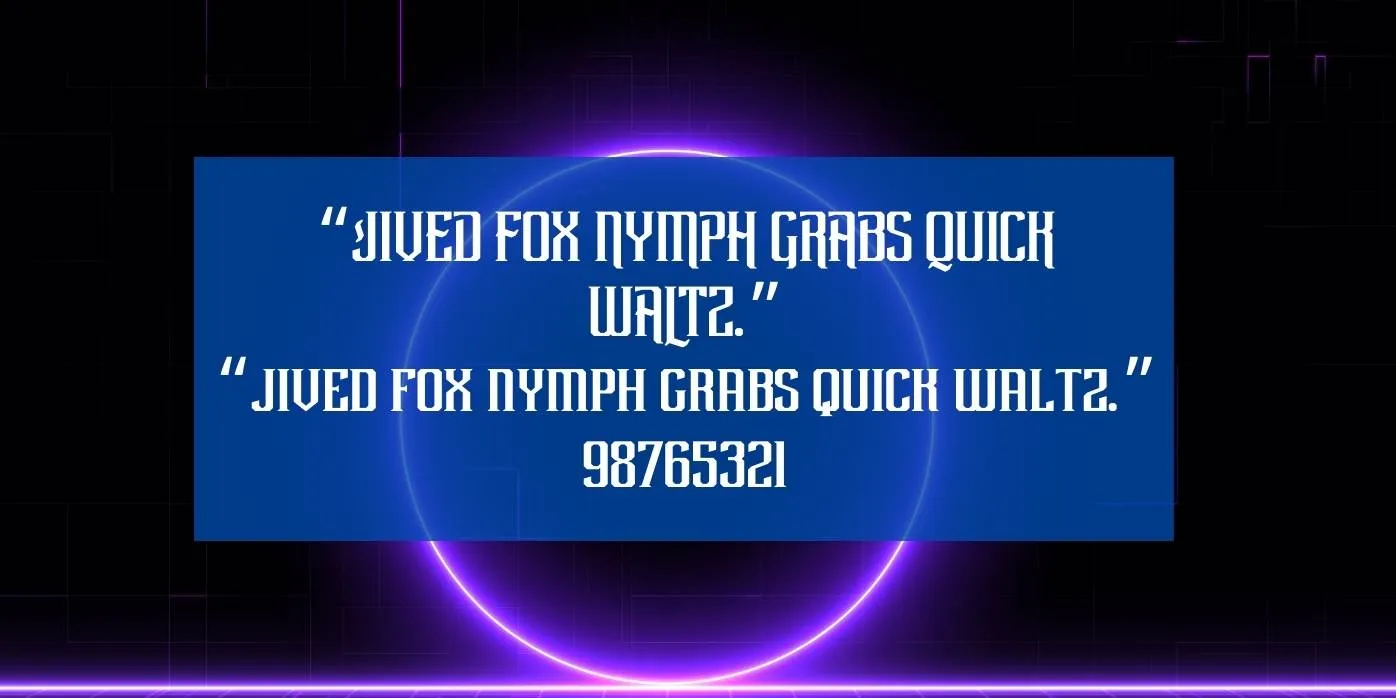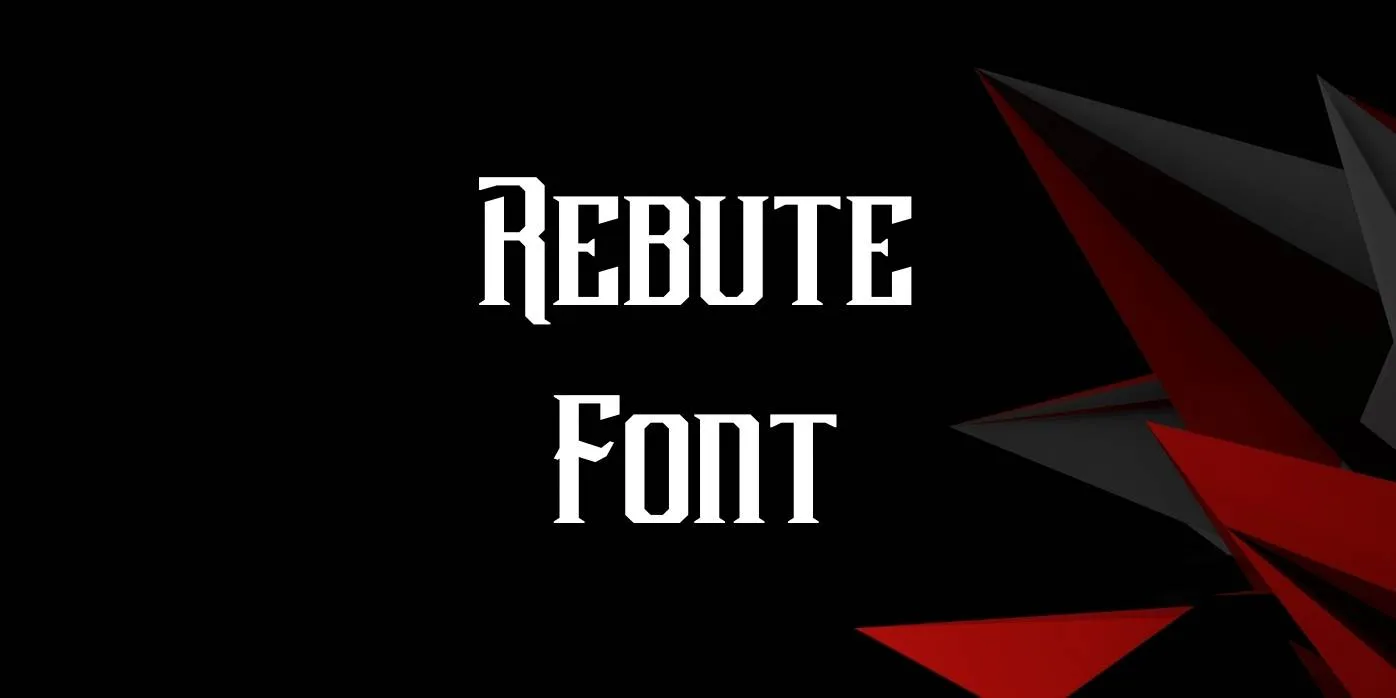
Rebute Font
Here, we discuss a tremendous typeface known as Rebute Font. This typeface belongs to the slab serif typeface. This typeface was designed by Twicolabs Fontdation. This typeface was first released on 7th February 2012.
This typeface supports many languages. This typeface has a unique and stylish look. The designer has given a modern touch to this typeface. This typeface is perfect for headlines, titles, and logos.